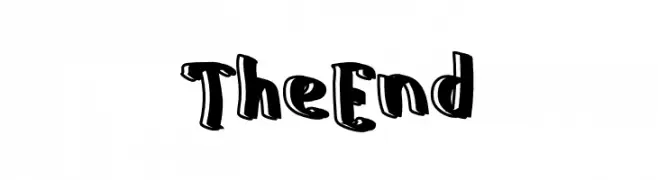
A bold, elegant script font with flowing, cursive letterforms.
An elegant, flowing script font with decorative flourishes.
A bold, dripping font with an edgy, artistic style.
A bold, playful font with a hand-drawn, artistic style.
A bold, dynamic script font with flowing, interconnected letters and decorative lines.
A modern, industrial font with bold outlines and geometric shapes.
A modern, italic font with bold outlines and geometric shapes.
A bold, distressed font with a grunge aesthetic.
A bold, distressed font with a vintage, weathered look.
A bold, textured serif font with a vintage, distressed style.